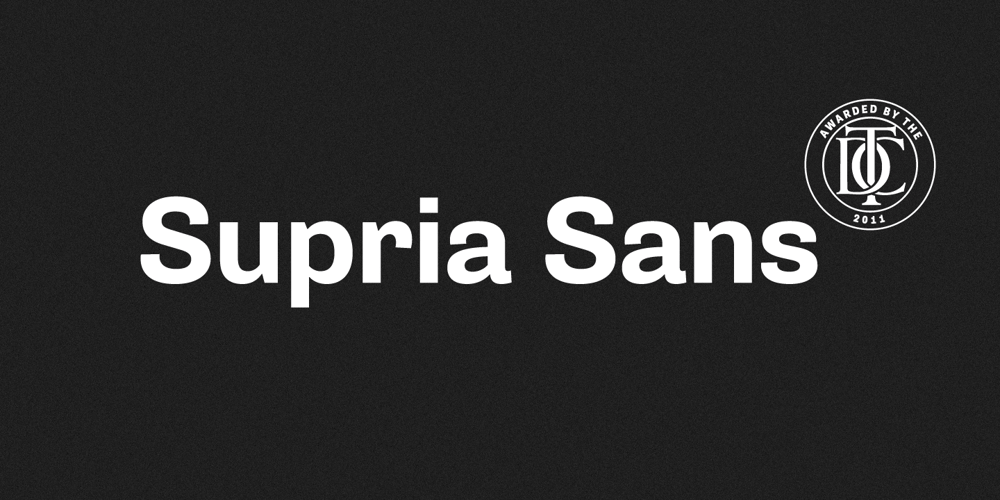
Supria Sans
Supria Sans font
Supria Sans Font Family was designed by Hannes von Döhren and published by HVD Fonts. Supria Sans contains 18 styles and family package options. Supria Sans™ and Supria Sans Condensed is an extended family of 36 fonts designed by Hannes von Döhren. It contains two widths, six weights and three styles, including the curvy, feminine Italic as well as the more conventional Oblique. Although it is inspired by the utilitarian clarity of Swiss type design, subtle curves and fine detailing impart a more playful character to the whole Supria Sans family. Supria Sans™ is equipped for complex, professional typography. As an exclusively OpenType release, these fonts feature small caps, five variations of numerals, arrows and an extended character set to support Central and Eastern European as well as Western European languages. Supria Sans™ received the “Certificate of Excellence in Type Design” at the TDC2 (2011).